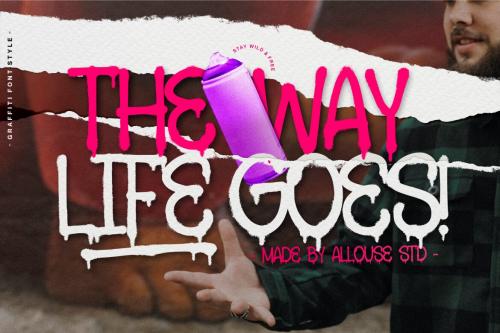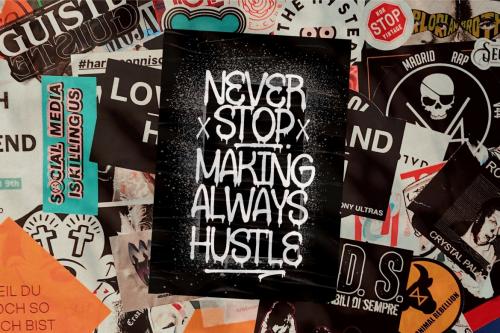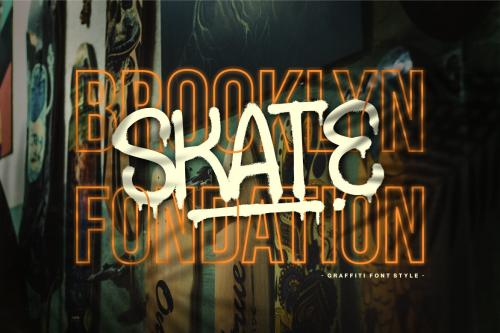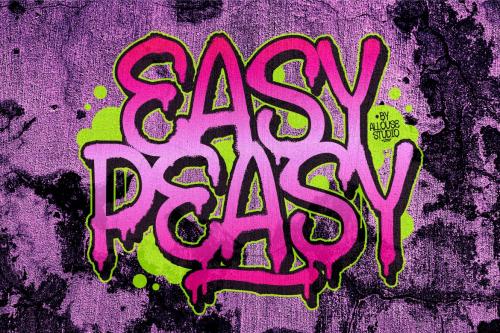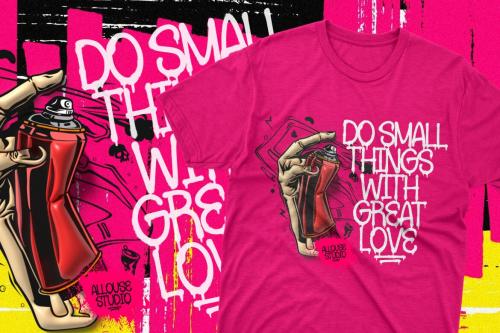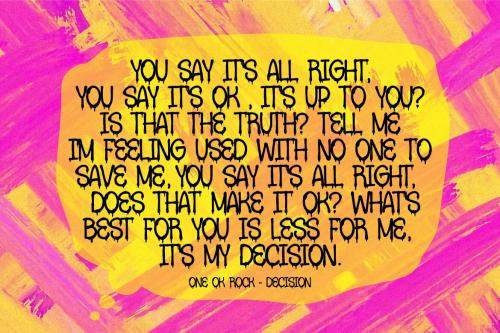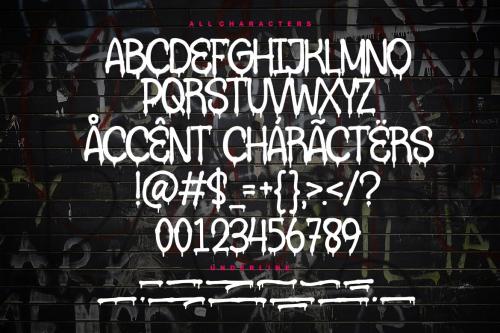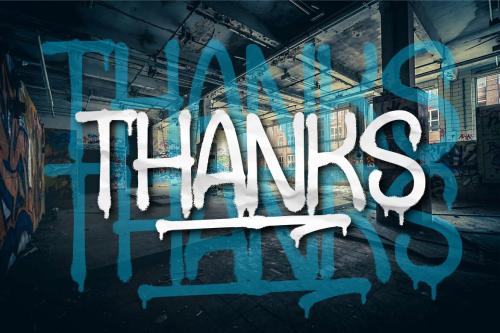
Introducing by Allouse.Studio
Proudly Present, Urbandrips
Urbandrips A Graffiti Font Style
Urbandrips is perfect for product packaging, branding project, megazine, social media, wedding, or just used to express words above the background.